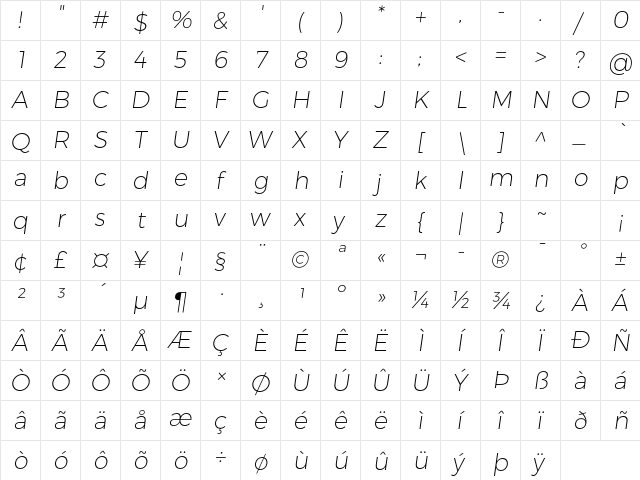
Trueno UltraLight Italic
| Foundry | Julieta Ulanovsky |
| Designer | Julieta Ulanovsky |
Design Context for Trueno Typeface
Trueno is a composed and adaptable typeface that performs quietly and consistently across a wide range of design contexts. The slanted form adds forward momentum and visual energy. Its slender proportions lend an understated elegance to any composition.
Pro Tip: Try Trueno for annotation and caption copy alongside an upright companion — the contrast in angle creates a dynamic but ordered typographic system.